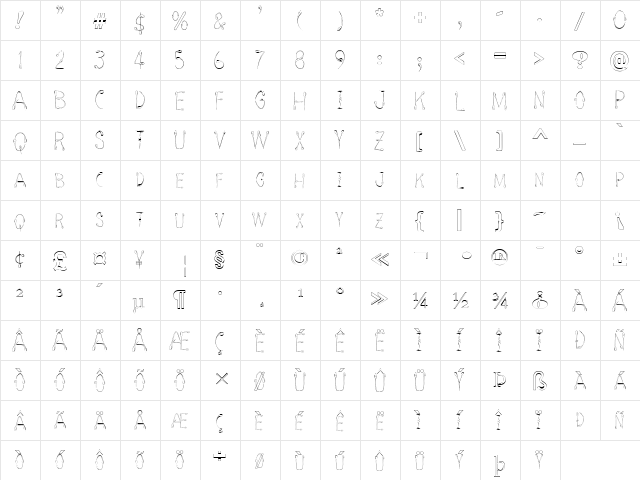
SPERM FONT Regular
Design Context for SPERM FONT Typeface
SPERM FONT is a composed and adaptable typeface that performs quietly and consistently across a wide range of design contexts.